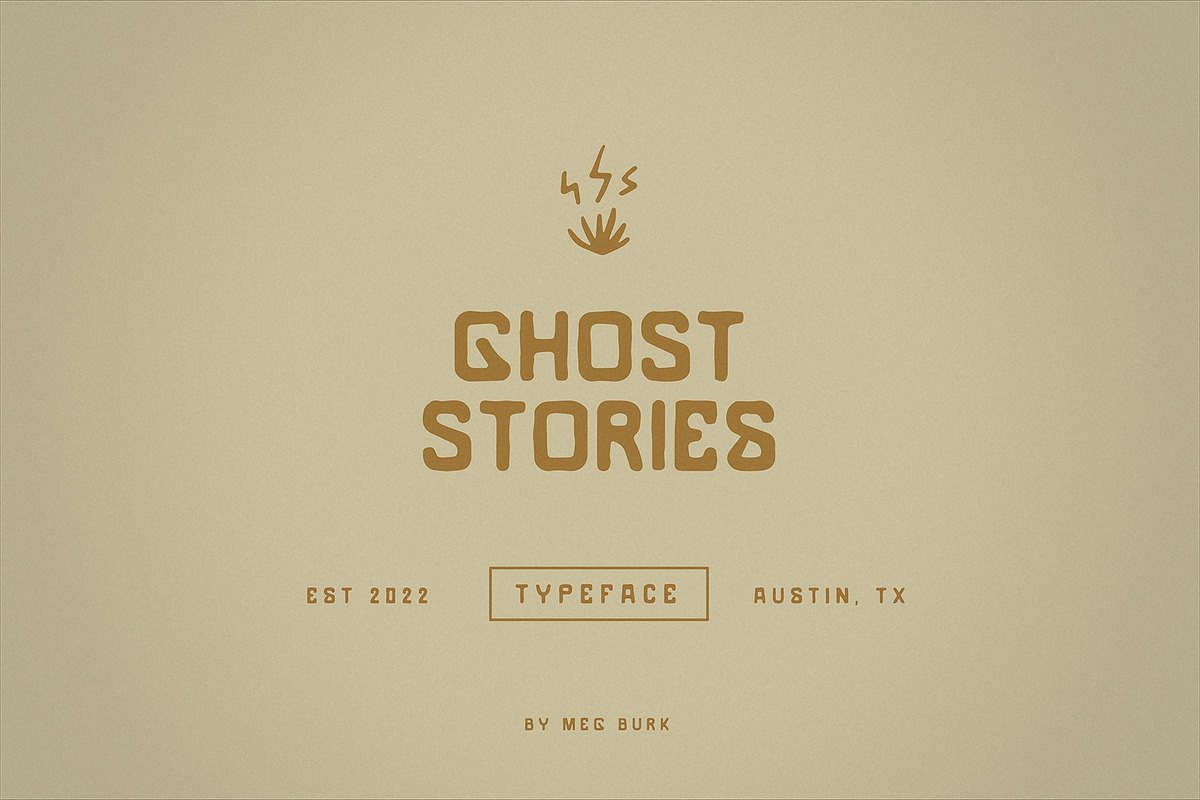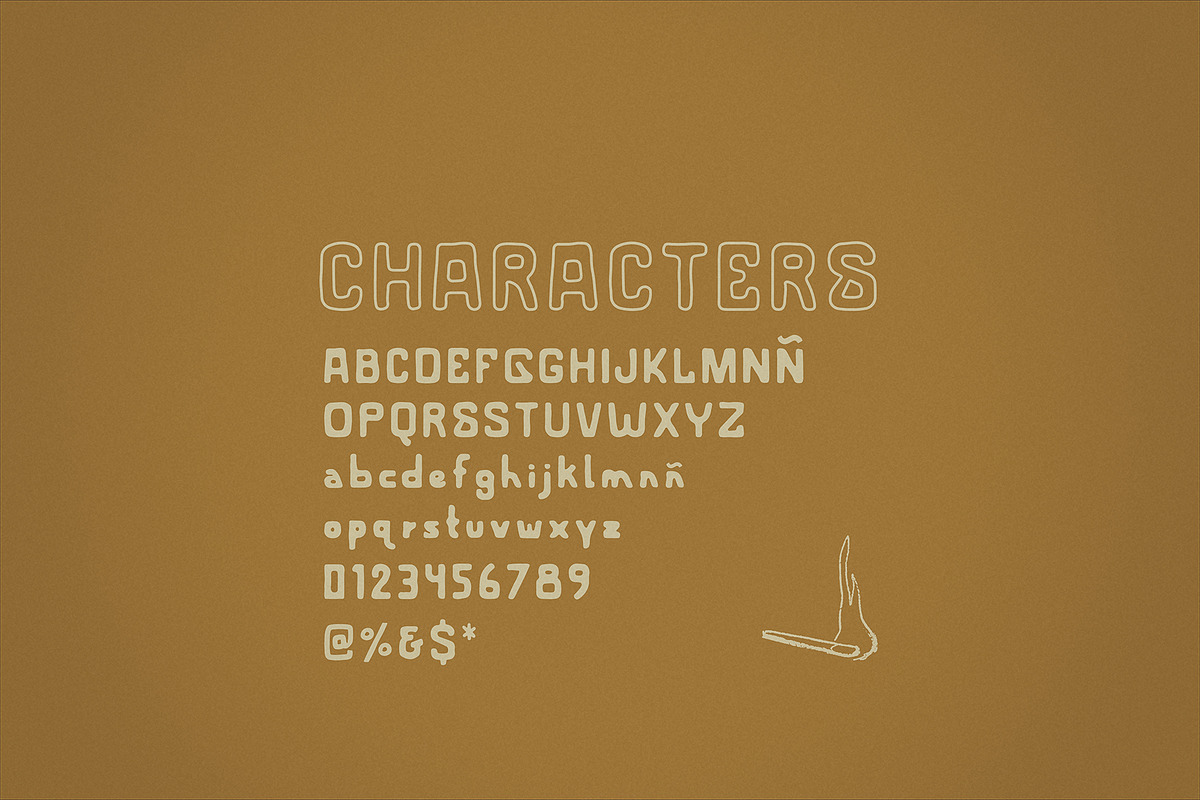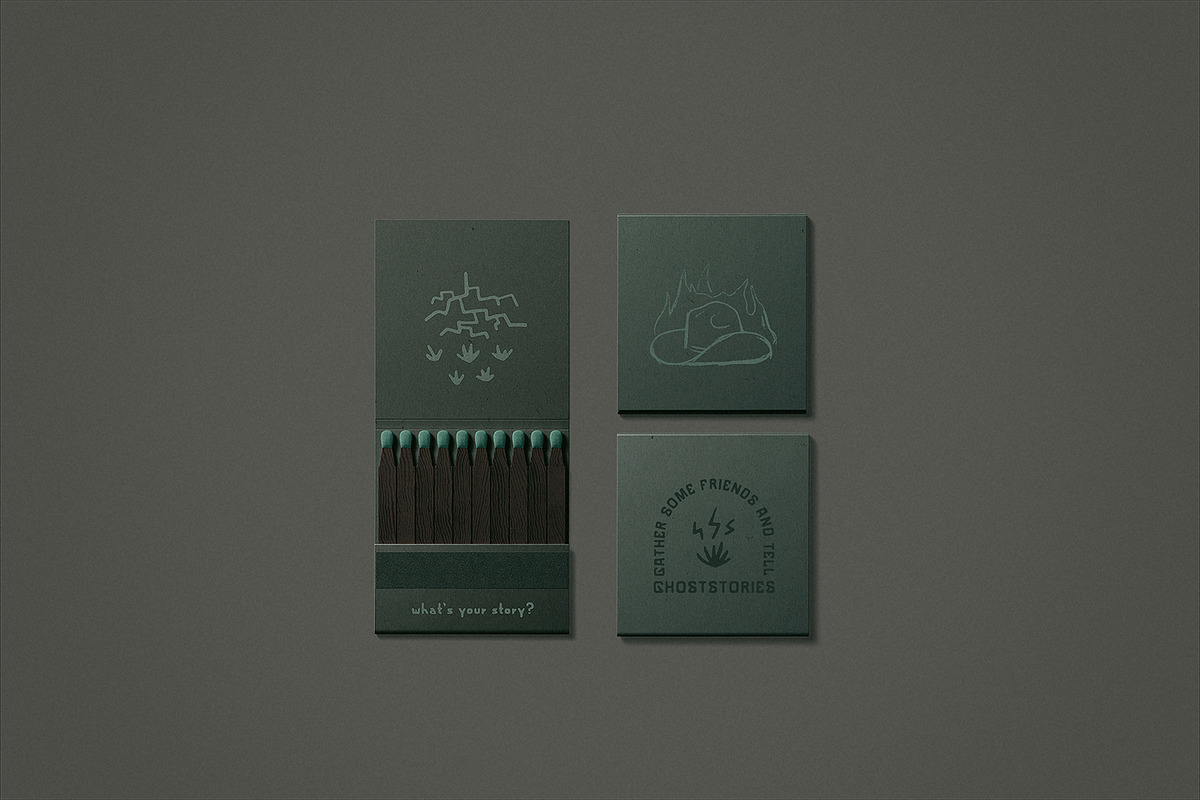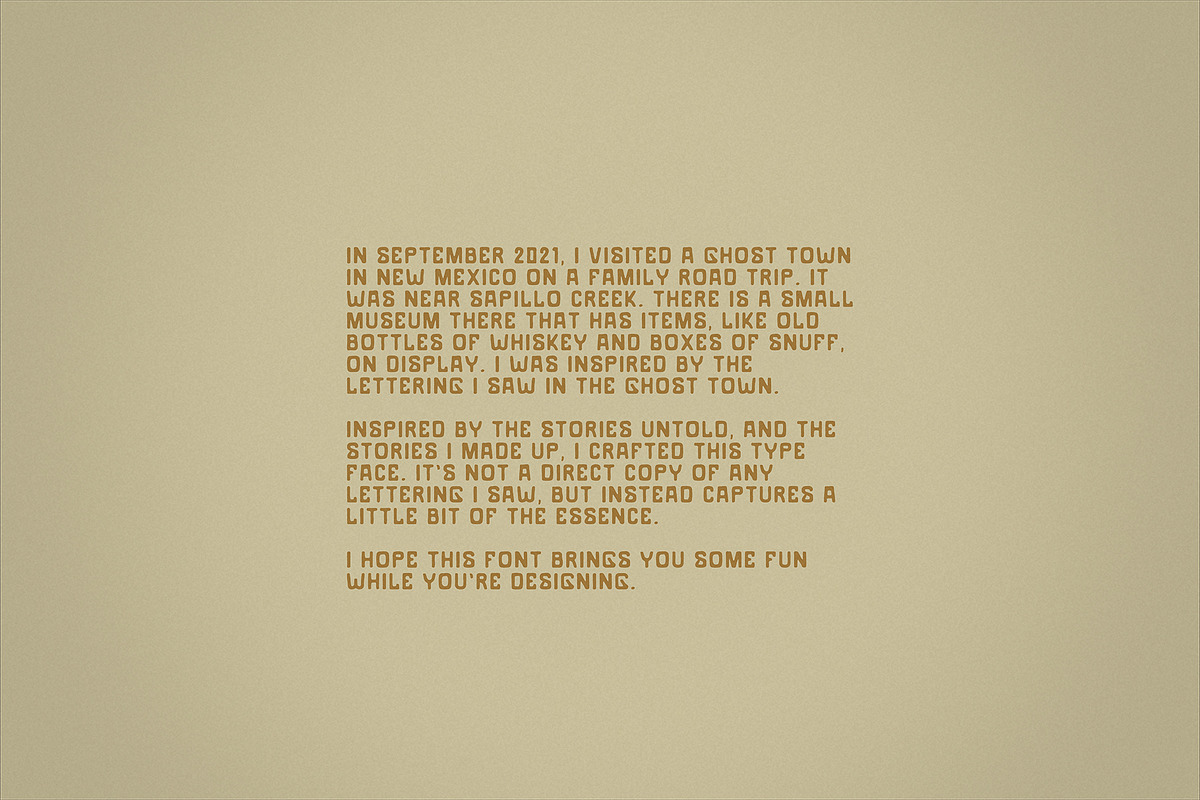
Ghost Stories
A vintage sans inspired by old liquor bottle labels I saw in a ghost town. Includes lowercase characters and a folder of PNG illustrations for you to use however you'd like!